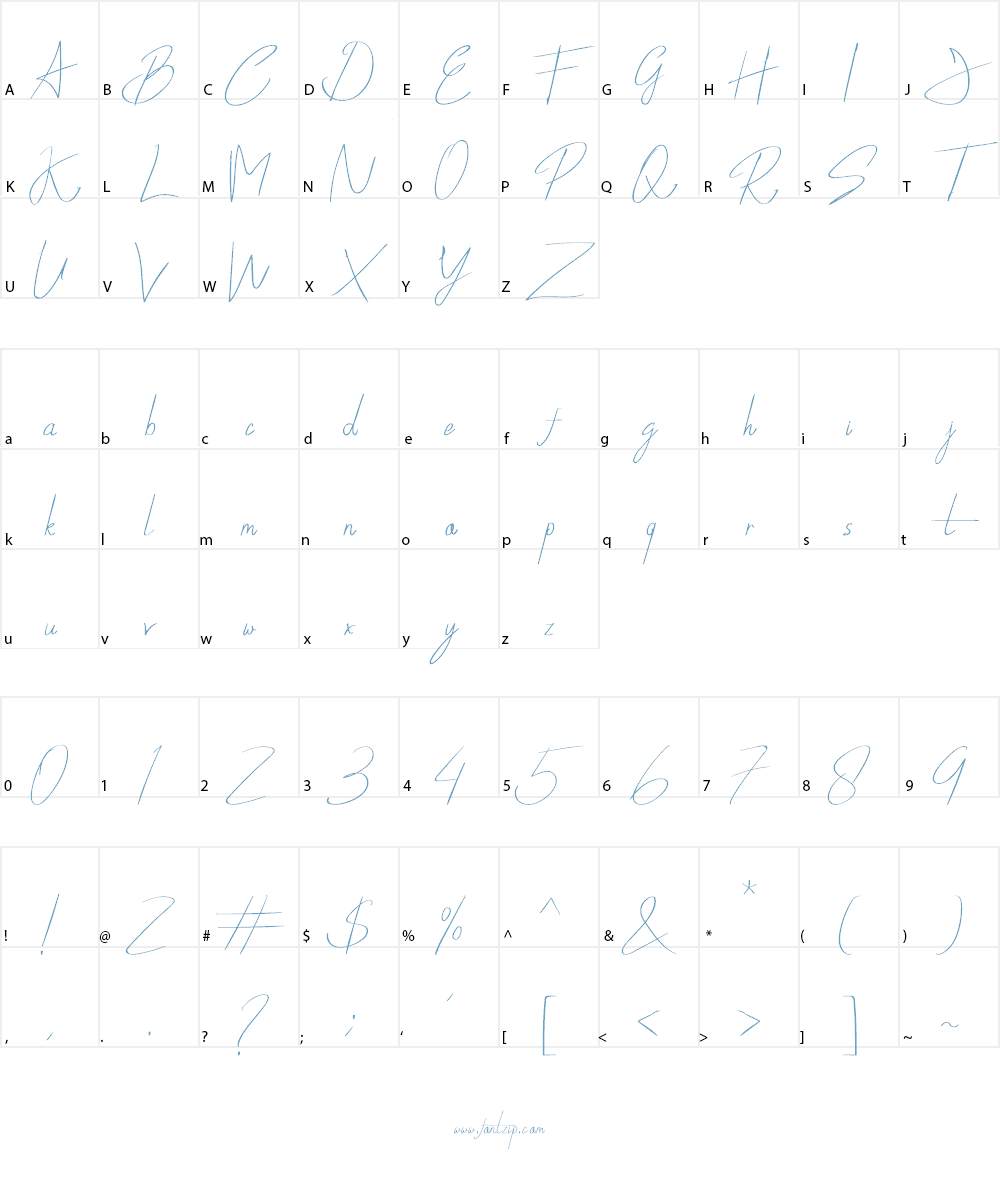
Synthia handwritten font demo is a trial version of synthia hamdwritten. This font take simple of women with all their softness as inspiration and then make this font looks sophisticated classy.